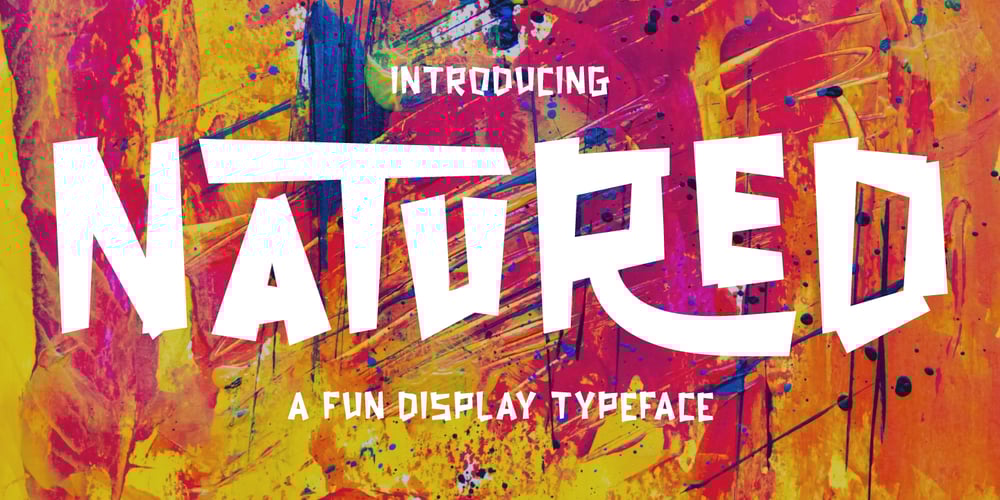
Natured Font Family was designed by Muhammad Hasan and published by MuSan. Natured contains 1 styles and family package options. Natured is a fun, playful, bold display typeface. This font will bring joy and happiness to all of us. Natured is best suited for display, heading, text, print, branding, signage, and more. It comes with a lot of ligature that will give your design a more unique touch in any purpose. Natured contains: • Character set A-Z • Numerals • Punctuation • Multilingual • More than 40 Ligatures